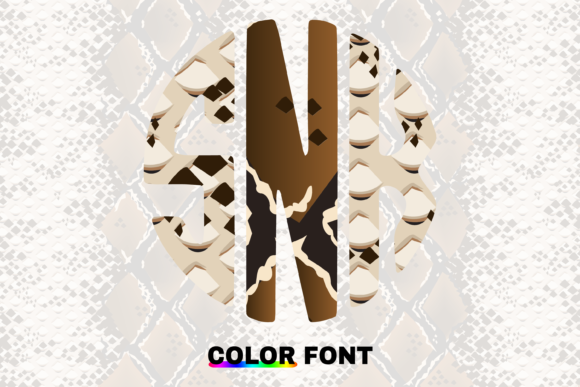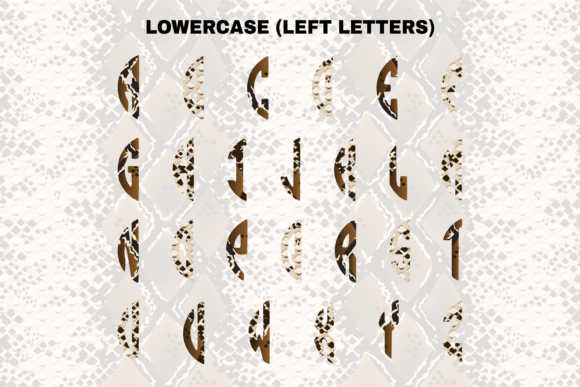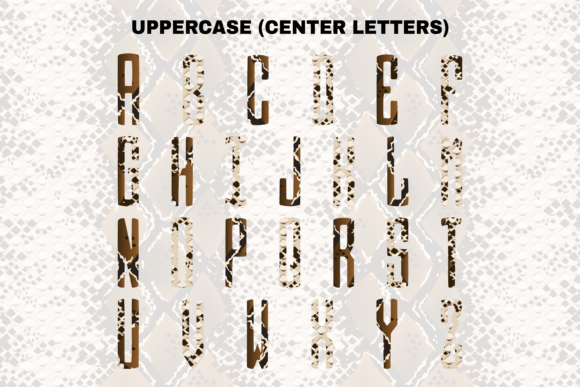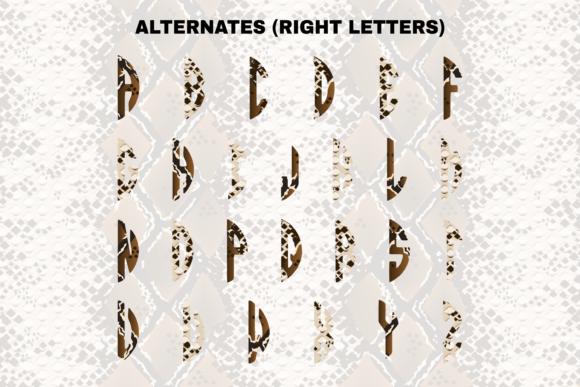
About Snake Circle Font
Snake Circle is an absolutely cool and versatile 3-letter monogram font featuring adorable snake elements. It’s a fantastic choice for custom designs, DIY crafts, and any creative project that needs a touch of charm. Here’s what makes Snake Circle stand out:
1. Unique Monogram Design: Snake Circle is specifically designed for creating stylish monograms with three letters. The font combines the elegance of a circular layout with cute snake elements, resulting in a visually appealing and distinctive monogram style.
2. Customizable and Personalized: With Snake Circle, you can easily customize your monogram by simply typing your desired three letters. The font provides a seamless integration of the snake elements into the circular design, allowing you to create personalized monograms that reflect your individual style.
3. Versatility in Design: Snake Circle can be used in a wide range of creative projects. Whether you’re designing logos, branding materials, invitations, or personalized crafts, this font adds a lovely touch and creates a sense of uniqueness and sophistication.
6. Craft and DIY Friendly: Snake Circle is perfect for DIY crafts and projects. Whether you’re creating personalized gifts, monogrammed clothing items, or home decor, this font adds a special touch that sets your creations apart.
Embrace the versatility and charm of Snake Circle as you bring your custom designs, DIY crafts, and creative projects to life. Enjoy the easy customization and access to glyphs and swashes, allowing you to create unique and personalized monograms. Let Snake Circle be the perfect choice for adding a lovely touch to your creations.